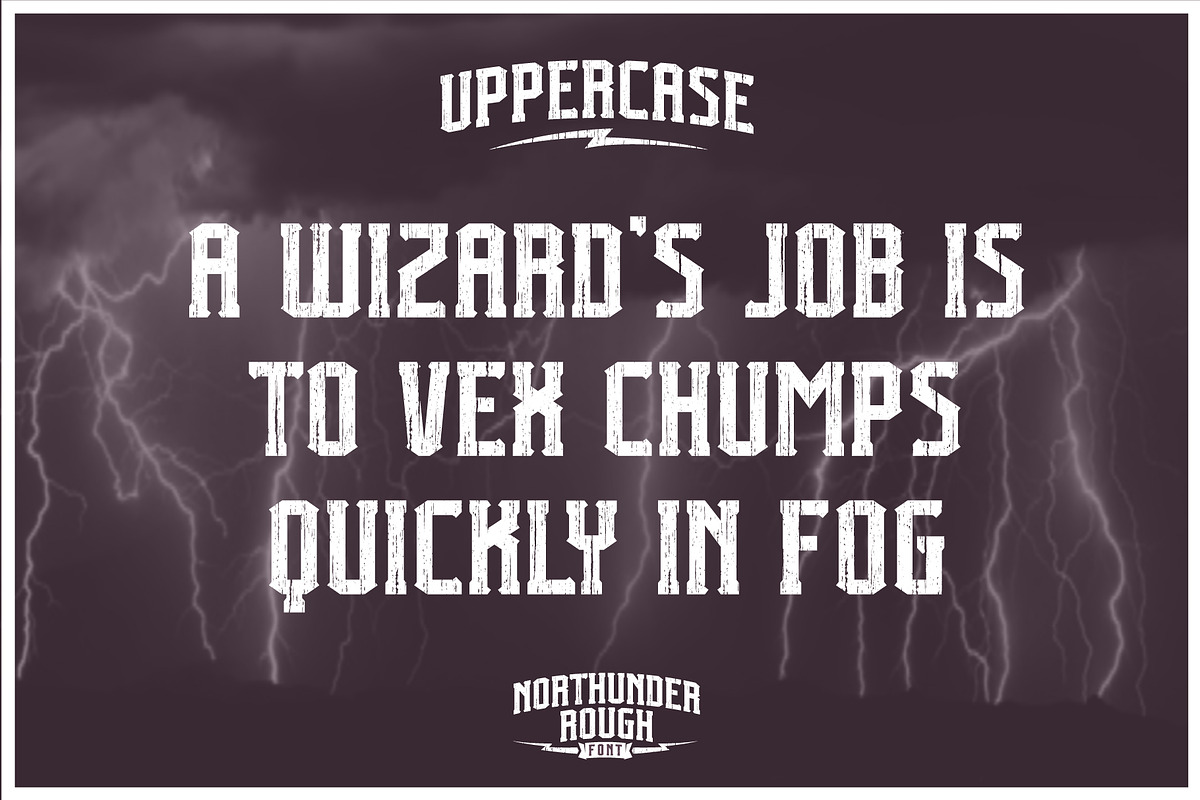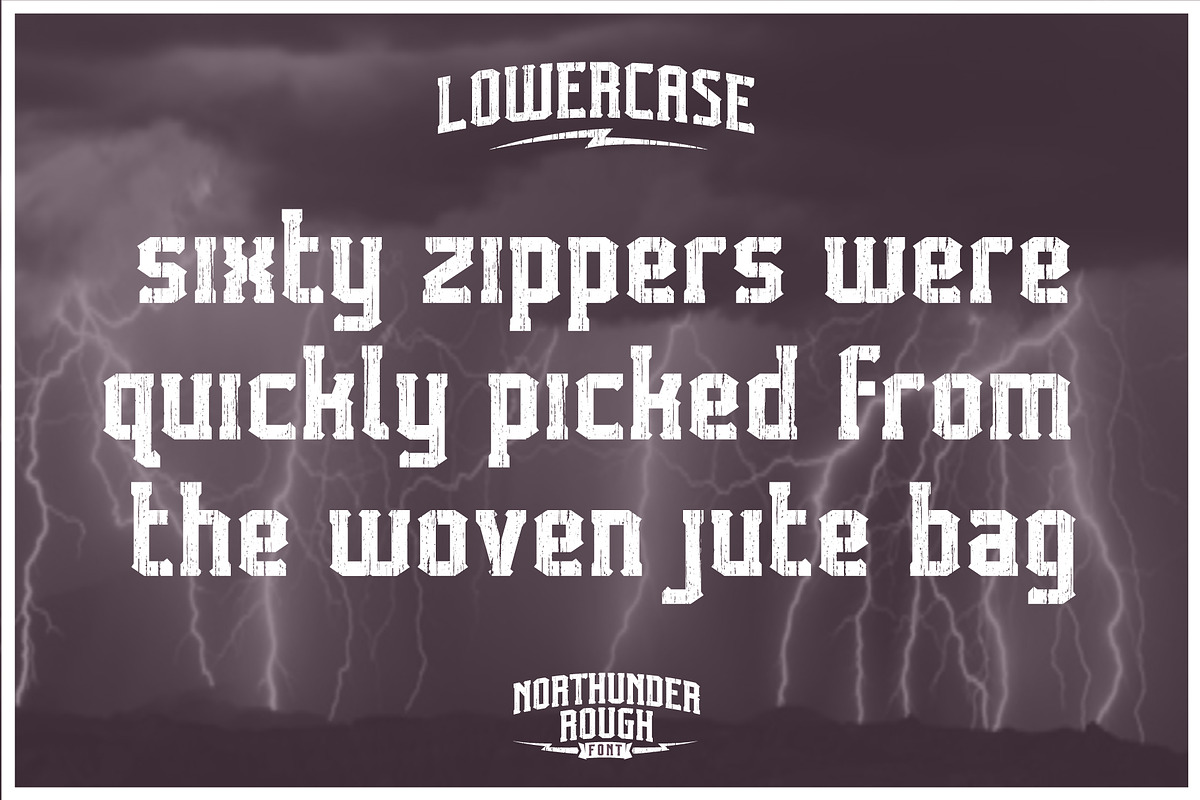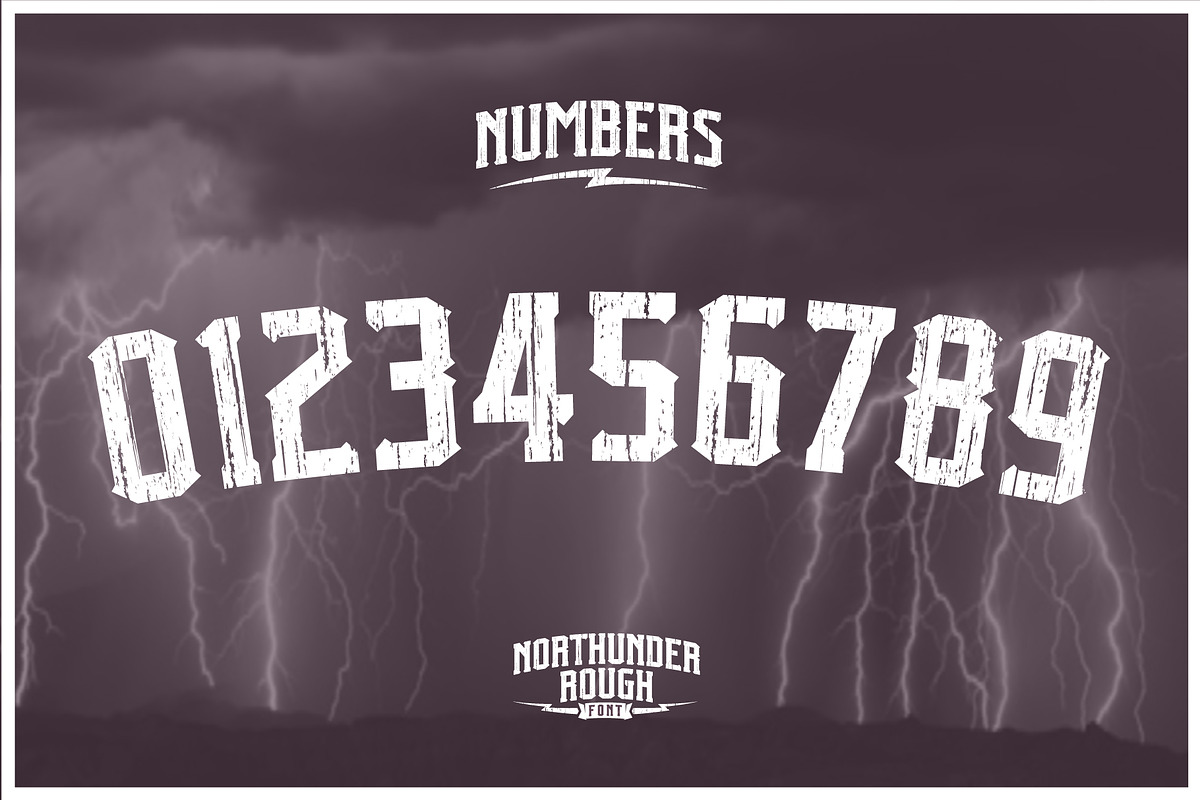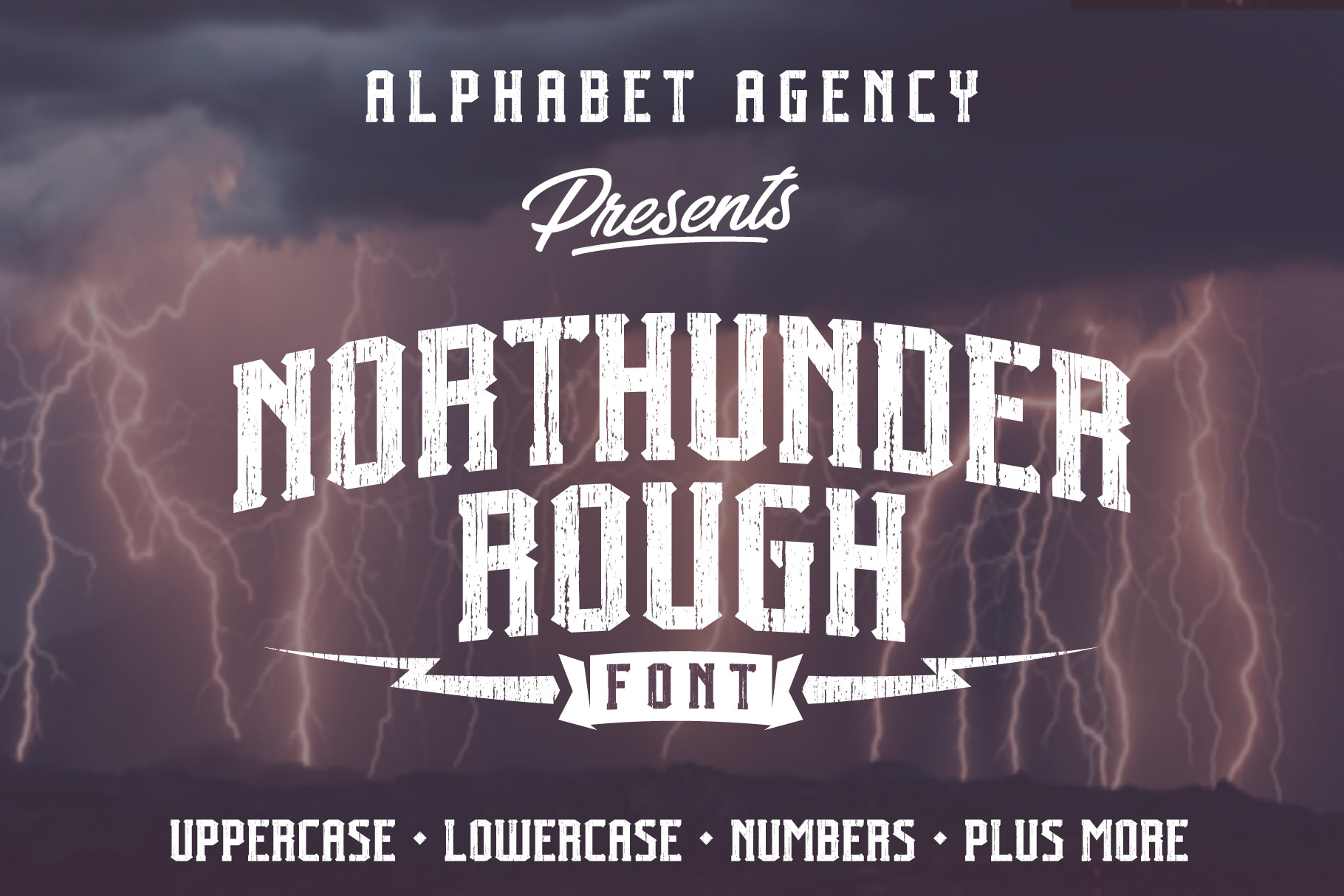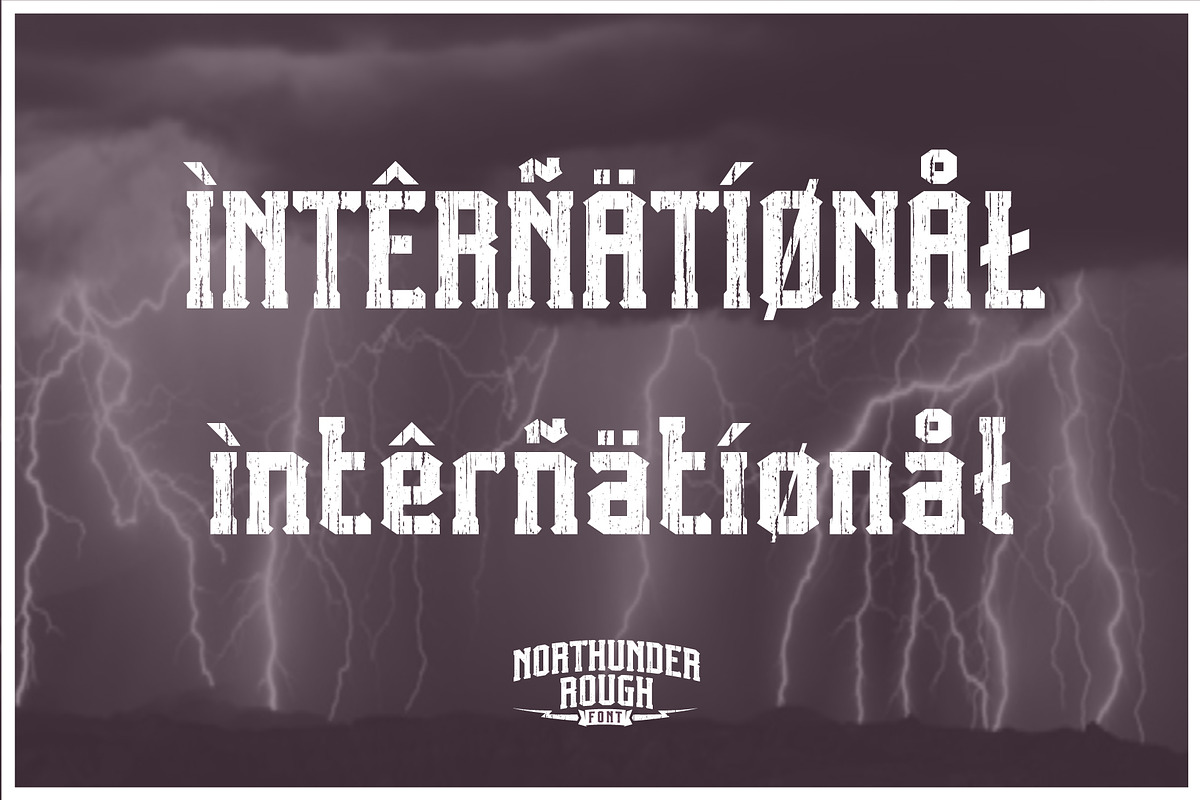
NORTHUNDER ROUGH FONT
Northunder (Nor/Thunder) Rough is a vintage style font with a powerful presence. It can be used as an excellent display font as it possesses a unique serif style combination of slab serif and serif that create sharp points that really give the font its character. The slab serif elements help give the characters a strong look and balance across the font. The font includes uppercase, lowercase, number, international Latin letters and punctuation.